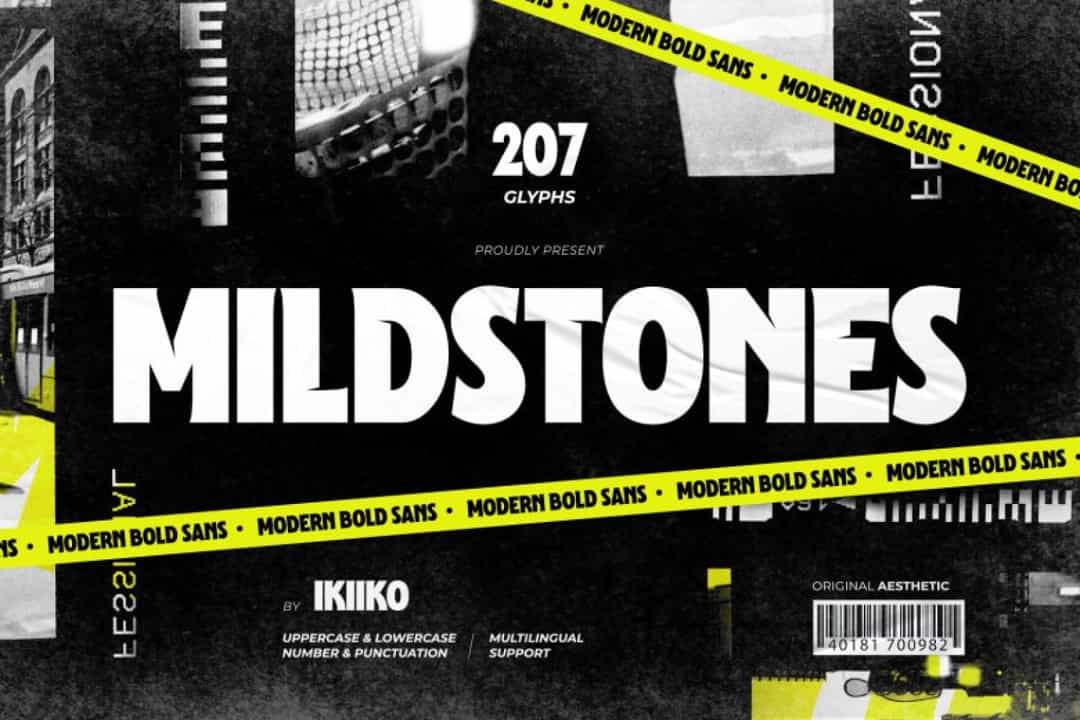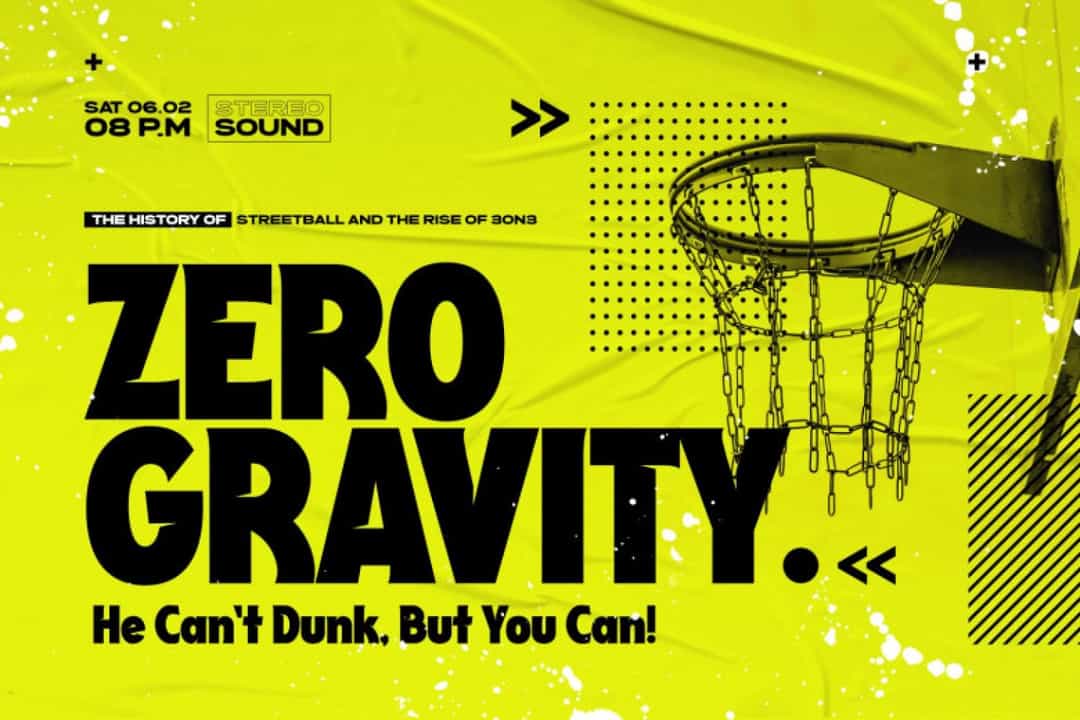
Mildstones Modern Bold Sans Font, created by ikiiko, is an attention-grabbing bold sans serif typeface designed to reanimate headlines with its striking appearance and elevate any design endeavor with its distinctive yet stylish appearance. Every letter in Mildstones was thoughtfully created to convey authority, security and elegance.